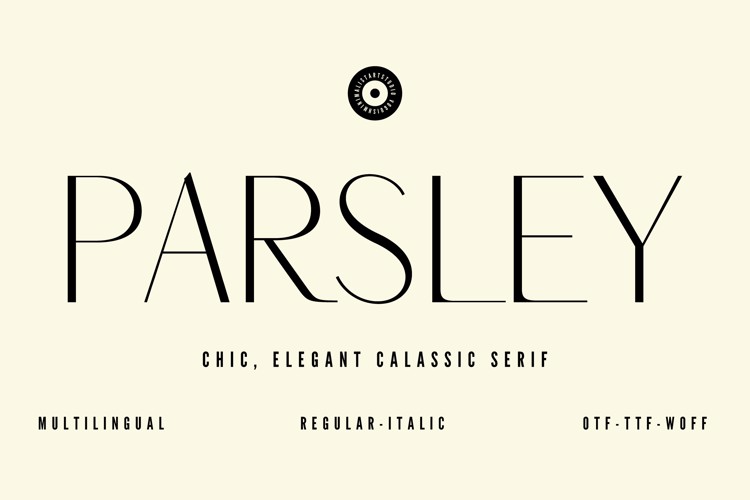
Parsley Font
π¨ Font Name: Parsley by Minimalist Art Studio
π¨ Font Description: Parsley is a chic sans serif with multilingual supportβideal for fashion branding, editorial elegance, and minimalist packaging.
β Complete Latin set + multilingual diacritics
β Alternates, stylistic sets & ligatures
β Numbers, small caps, and extended punctuation
β Bonus italics and family styles